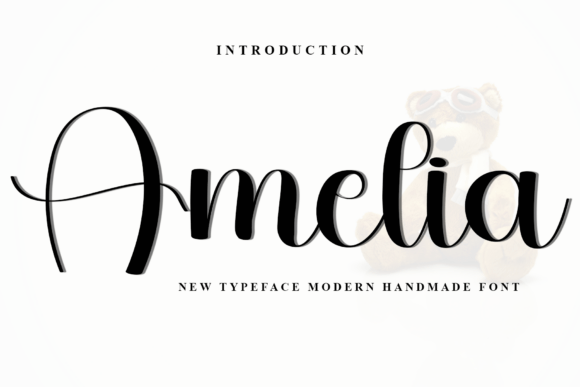
The Designer’s Delight: Amelia Font
I’ll never forget the time I was working on a branding project for a new coffee shop. I had the logo concept nailed, but I was struggling to find the perfect font to complement it. That’s when I stumbled upon Amelia, a lovely and timeless handwritten font that instantly caught my eye. It was like the design gods had smiled upon me! 😊
Amelia is a beautiful, unique font that can add a touch of elegance and sophistication to any design project. In this article, I’ll share my experience with Amelia, its features, and how to make the most of it in your designs.
An Honest Review of Amelia Font
What I Love About Amelia ✨
• Unique and beautiful letterforms that add a personal touch to any design ✅
• Perfect for creating eye-catching logos, branding, and quotes 📣
• Timeless and elegant feel that suits a wide range of design projects 🕰️
• Easy to read and understand, even in smaller sizes 📚
• May not be the best choice for body text or long paragraphs of text 📝
• Some users may find the font a bit too ornate or decorative ⚠️
The Story Behind Amelia Font
Amelia was designed by a talented type designer who wanted to create a font that would evoke a sense of timelessness and elegance. Inspired by classic calligraphy and handwriting, Amelia is a beautiful and unique font that has become a favorite among designers.
Q: What type of projects is Amelia best suited for?
A: Amelia is perfect for creating eye-catching logos, branding, and quotes. It’s also great for creative projects, such as invitations, posters, and social media graphics.
Q: Is Amelia a difficult font to read?
A: No, Amelia is a clear and elegant font that’s easy to read, even in smaller sizes.